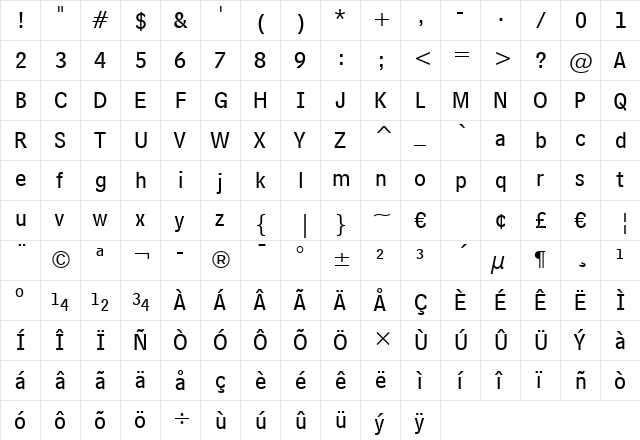
BellCent SubCap BT Sub-Caption
Design Context for BellCent SubCap BT Typeface
BellCent SubCap BT is a composed and adaptable typeface that performs quietly and consistently across a wide range of design contexts.